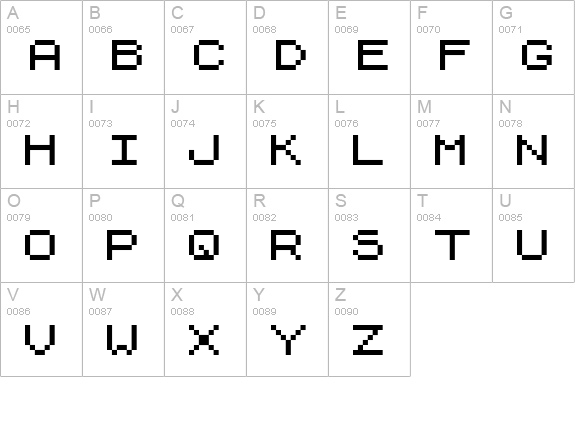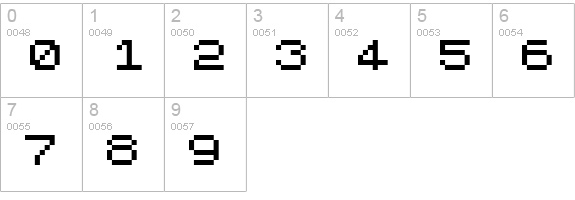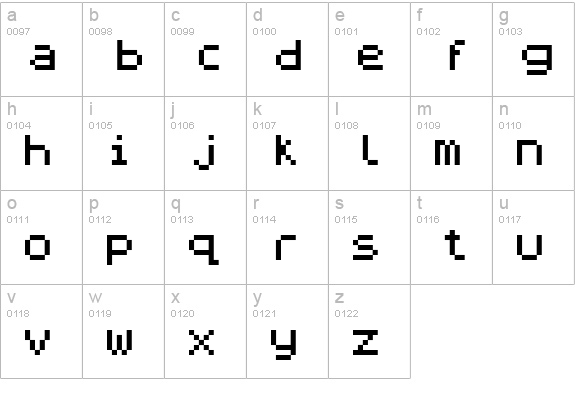
ZX Spectrum Font Details
The ZX Spectrum font is a classic typeface that brings back nostalgic memories of the iconic computer system from the 1980s. This pixelated font is perfect for retro-themed designs, video games, and any project that requires a vintage touch. The ZX Spectrum font is not only stylish and unique, but it is also completely free to download at FontsMarket.com. Embrace the charm of the past with this freely available font and add a touch of nostalgia to your creations.